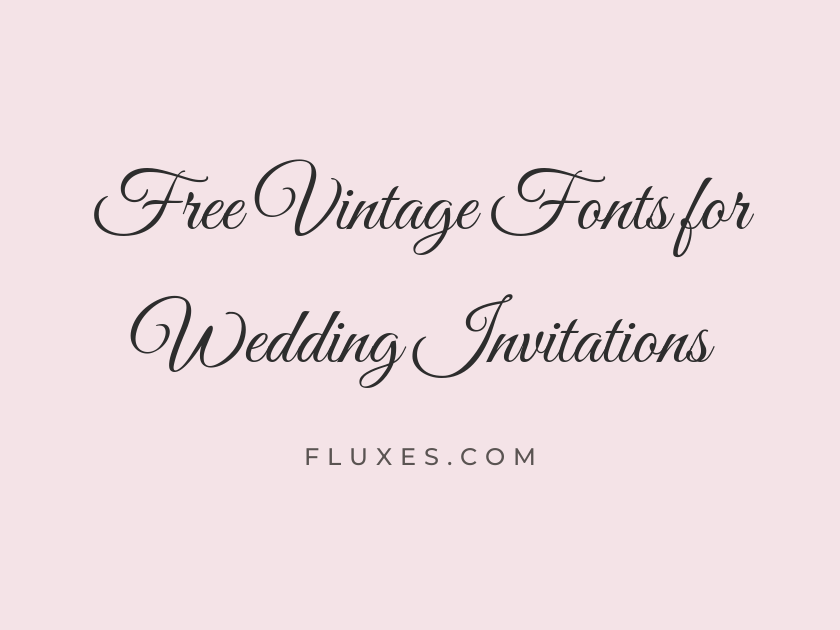
66 Best Free Vintage Fonts for Wedding Invitations
Vintage wedding invitations lean on a very particular kind of typography: the loop of a Victorian script, the crisp confidence of an old-style serif, the flourish of an Art Deco display letter salvaged from a 1920s menu card. The good news for anyone designing on a budget is that nearly all of this heritage character is available for free through Google Fonts, ready to drop into a design tool or WordPress site without a licensing headache. Whether you’re building a full save-the-date suite, a single elegant invitation, or matching place cards and menus, there is a genuinely wide range of free vintage fonts suited to romantic, old-world, and retro wedding stationery.
The selections below move from romantic calligraphic scripts through classic serif workhorses and into bolder Art Deco and Victorian display letters, so you can mix and match across a full invitation suite.
1. Great Vibes
Great Vibes is the script so many invitation designers reach for first, and for good reason: its long, confident strokes read as instantly romantic without tipping into fussiness. It works beautifully as a headline script for names or a “Save the Date” line, though it needs generous letter spacing and a large size to keep the loops legible.
2. Alex Brush
Alex Brush has a looser, more brush-drawn feel than many formal scripts, as if written with a wet ink pen rather than a fine nib. That slightly imperfect quality makes it a warm choice for couples who want vintage romance without the stiffness of engraved calligraphy.
3. Allura
Delicate and narrow, Allura suits shorter phrases like names or dates rather than long sentences, where its fine hairlines can start to blur together. It pairs nicely with a wide, airy serif for body copy.
4. Parisienne
There is a soft, handwritten looseness to Parisienne that feels closer to a love letter than a formal invitation, which is exactly its charm. It is an easy way to bring a Parisian, old-postcard mood to a wedding suite.
5. Pinyon Script
Pinyon Script has real engraving-era pedigree in its shapes, with tall ascenders and a formality that suits traditional, black-tie weddings. It reads as the kind of script you would expect on an old letterpress invitation rather than a modern digital print.
6. Kristi
Kristi is thinner and more delicate than most scripts on this list, closer to a fountain-pen signature than a formal calligraphy hand. Reserve it for large decorative moments like a monogram or a couple’s initials rather than a full paragraph of text.
7. Mrs Saint Delafield
This one is unapologetically ornate, full of extended swashes that connect one letter to the next in a single continuous ribbon. It demands space around it, so it works best as a standalone line rather than crowded copy.
8. Herr Von Muellerhoff
Herr Von Muellerhoff leans elegant and slightly formal, with a European calligraphic flavor that suits vintage-inspired invitations with a continental feel. It is legible at moderate sizes, which makes it more versatile than some of the showier scripts here.
9. Rouge Script
Rouge Script sits somewhere between casual and formal, bouncy enough to feel personal but tidy enough for a wedding program. It is a dependable option when a font needs to remain readable across a full paragraph of details.
10. Petit Formal Script
As the name suggests, this is a tighter, more upright script than most of the free options on Google Fonts, closer to formal copperplate handwriting. It suits monograms, initials, and short titled lines beautifully.
11. Meddon
Meddon has a gentler, rounder script character that avoids the sharp contrast of pointed pen calligraphy. It reads as friendly and approachable, a good fit for casual garden or barn weddings with a vintage touch.
12. Italianno
Italianno’s tight loops and dramatic flourishes evoke old Italian signage lettering, giving it a distinct Old World character. It shines on a title line but can crowd itself at small sizes, so give it room to breathe.
13. Marck Script
Marck Script is bolder and heavier than most delicate wedding scripts, which makes it hold up well on darker paper stocks or reversed-out color invitations. It has a friendly, slightly retro handwriting quality rather than a formal calligraphic one.
14. WindSong
WindSong balances elegance with a touch of whimsy, its letters connected but never overly ornate. It is a solid middle-ground script for couples who find Great Vibes too common but want something in the same romantic register.
Test everything at actual print size before finalizing a design. A script that looks perfect on a screen can lose its delicate strokes once printed on textured cotton cardstock.
With this many free vintage options available through Google Fonts, there is no need to compromise on character or budget. A thoughtful pairing of just two or three of these faces is often all it takes to give a wedding invitation the timeless, romantic feel couples are after.